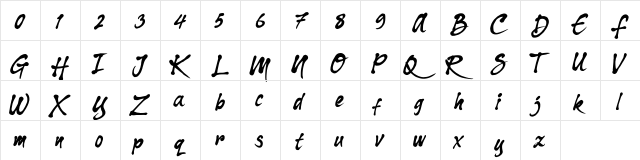
Dharko Gilbert Font Preview
Dharko Gilbert Dharko Gilbert
Design Context for Dharko Gilbert Typeface
Dharko Gilbert is a composed and adaptable typeface that performs quietly and consistently across a wide range of design contexts.
Pro Tip: Use Dharko Gilbert in both headline and body roles to test its range before committing to a single application.